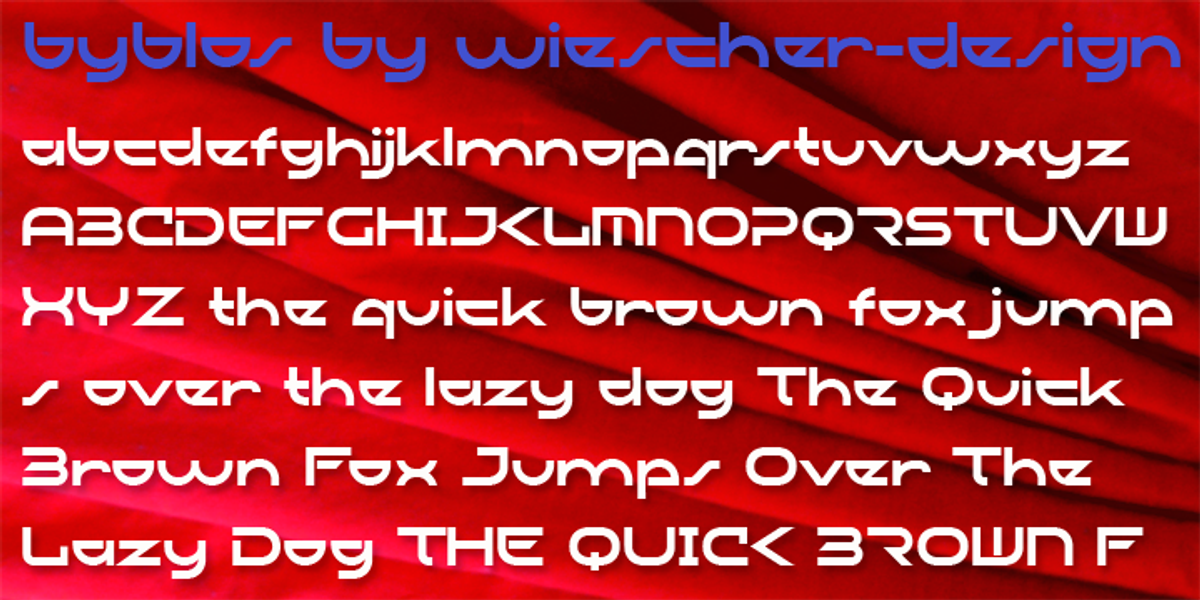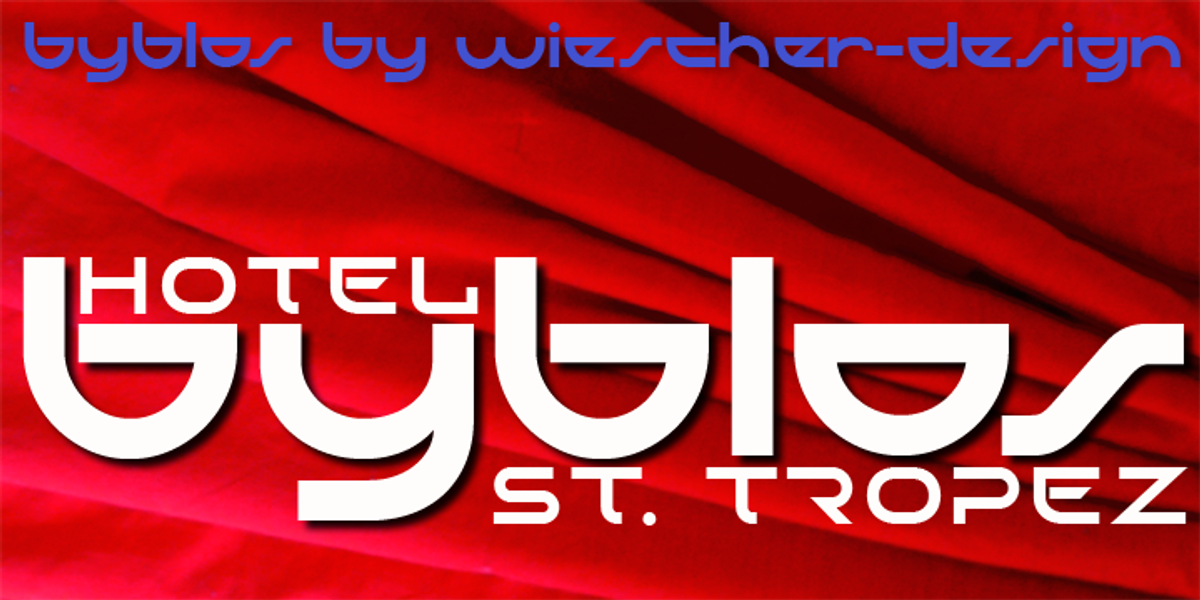
Byblos
This geometric sans-serif font draws inspiration from a vintage hotel logo. It blends retro aesthetics with a contemporary feel, making it suitable for branding, headlines, and display purposes.